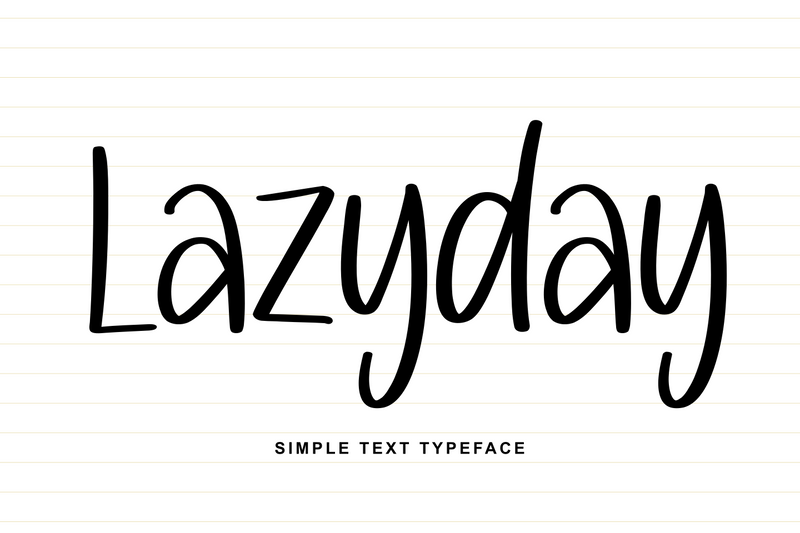
Lazyday
Lazyday is a calm and friendly text typeface designed to capture the beauty of unhurried moments. With its simple structure and relaxed letterforms, Lazyday feels natural and easy to read, making it perfect for quotes, daily notes, journals, and lifestyle content.